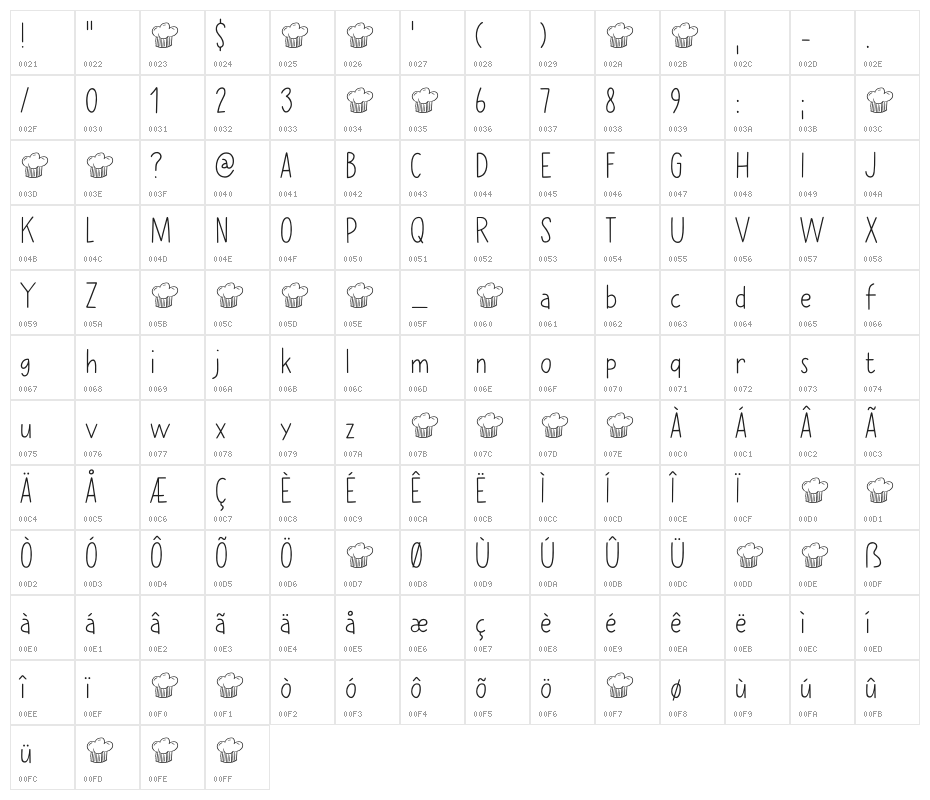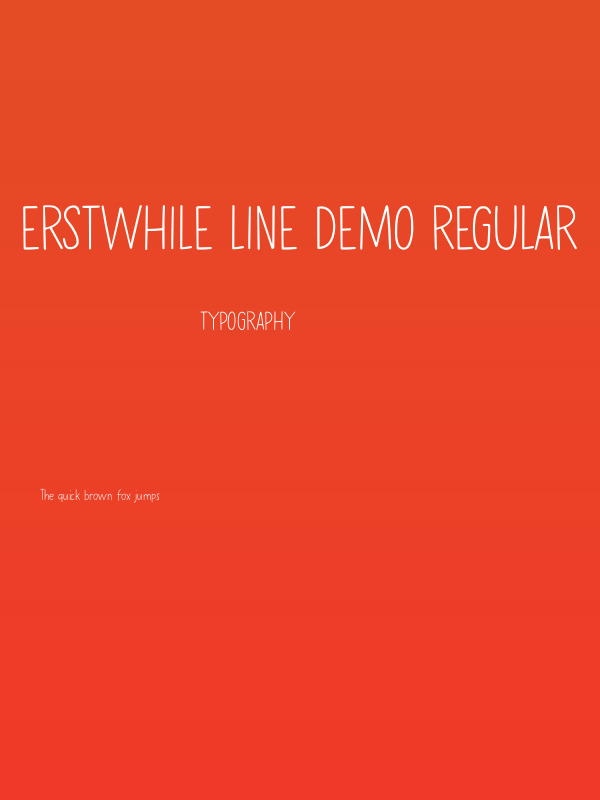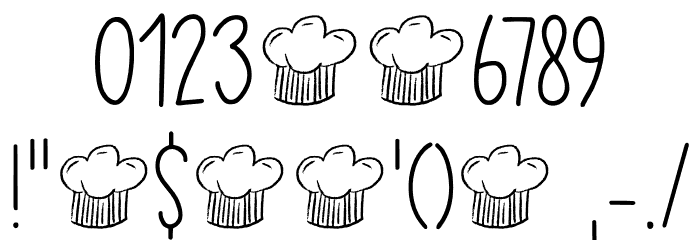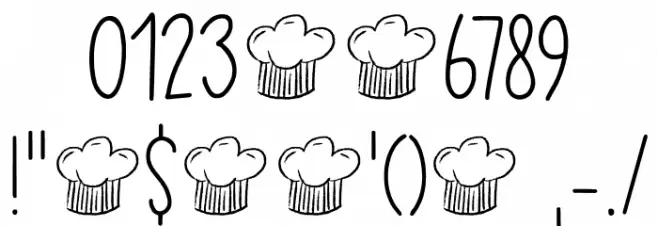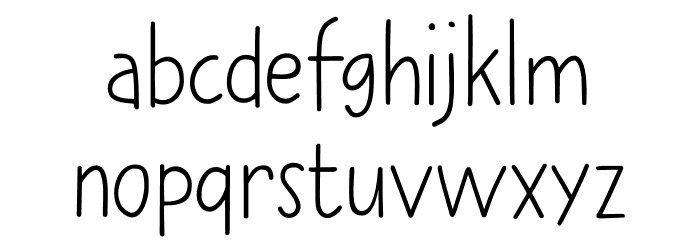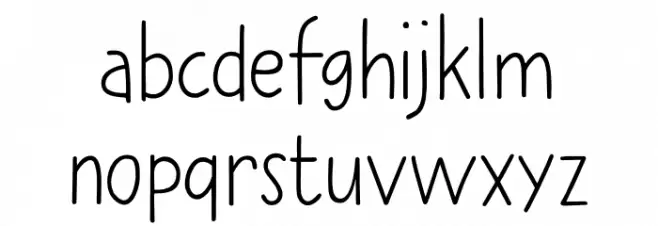
Erstwhile Line DEMO Regular Font
Erstwhile Line DEMO Regular Description
This font features a playful and whimsical style with tall, narrow characters that have a hand-drawn appearance. The uppercase letters are slightly taller than the lowercase, maintaining a consistent width throughout. The strokes are uniform, giving it a clean and approachable look. The numbers and special characters follow the same playful design, making it suitable for casual and fun projects. Its simplicity and charm make it versatile for various creative uses.
| Width | Condensed |
| Overall Style | Playful |
| Use Case | Logos, Headlines, Casual text |
| Proposed Projects | Ideal for children's books, greeting cards, playful branding, and casual invitations. |